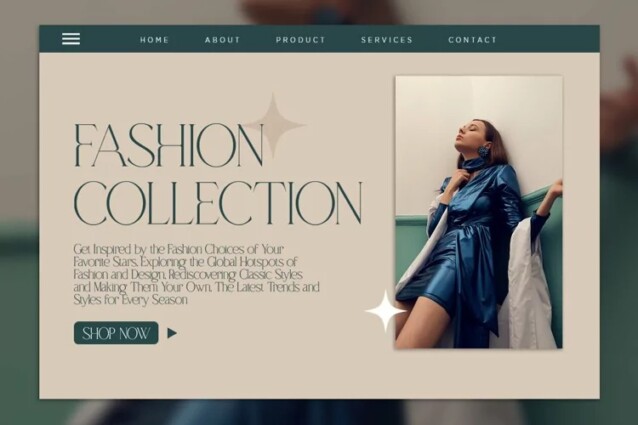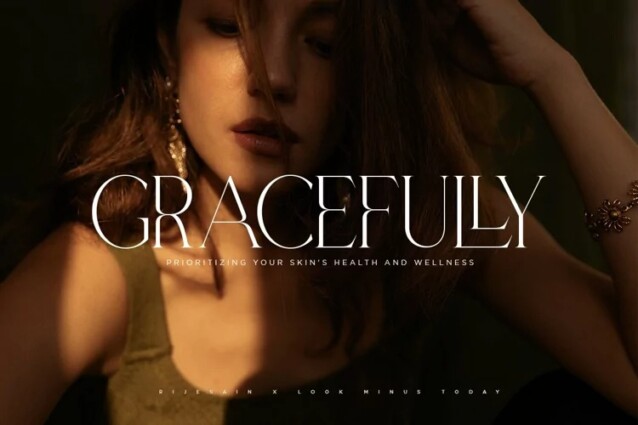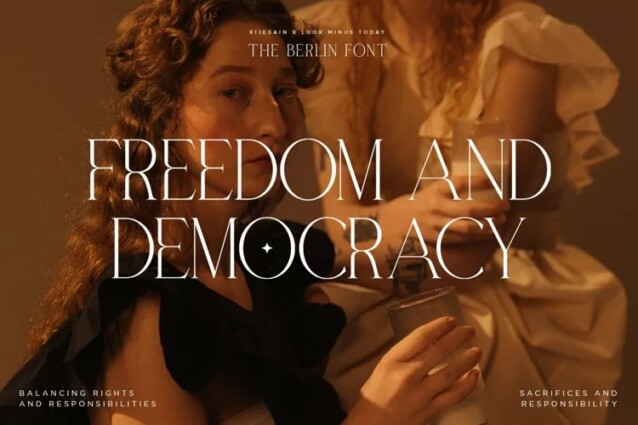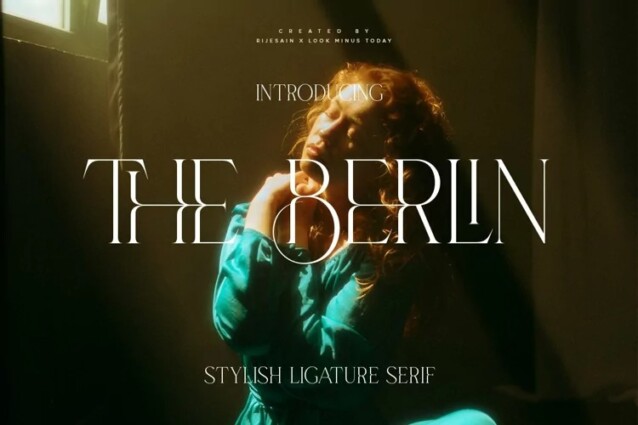
The Berlin Font
The Berlin Font is a modern serif font comes with joining ligatures that give it a fancy and unique style. It features a harmonious balance of firmness and grace, making it suitable for a range of design projects such as wedding invitations, fashion magazines, and promotional posters. Its readability and accessibility make it perfect for both print and digital designs.